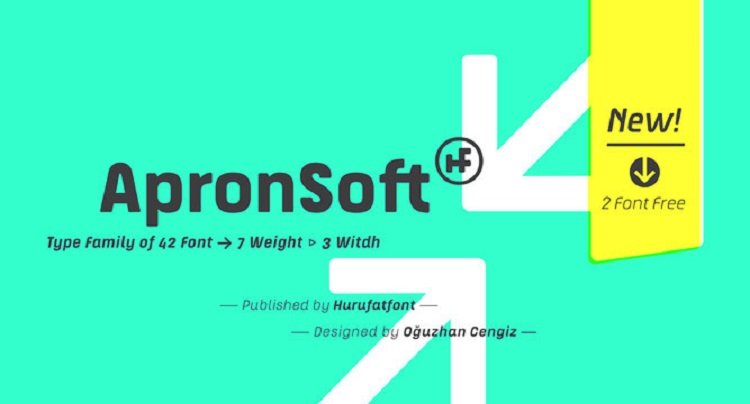
ApronSoft Font
The genesis of ApronSoft font type family is inspired by soft-vertical structure of airplane window.
On the other hand ApronSoft is making a reference to technological design mentality of early 2000’s.
In short texts it has stable view and also humanist effect. Very suitable for mobile apps, web designs, sportive & technological product packs and ads designs.
Especially Narrow Bold and Condensed Bold Italic weights have fluid and strong expression for striking headlines.